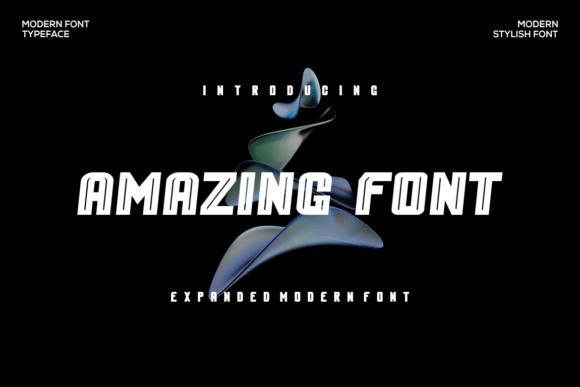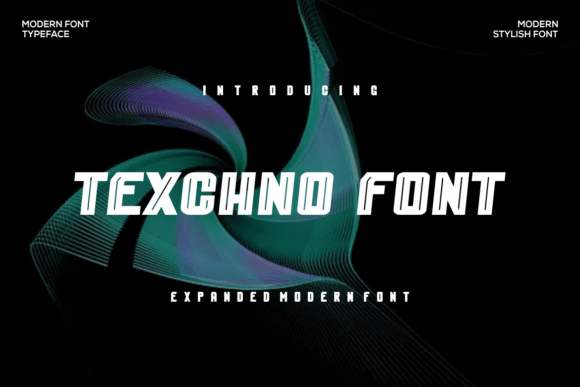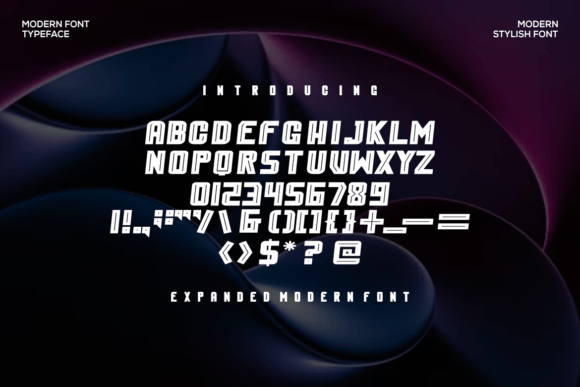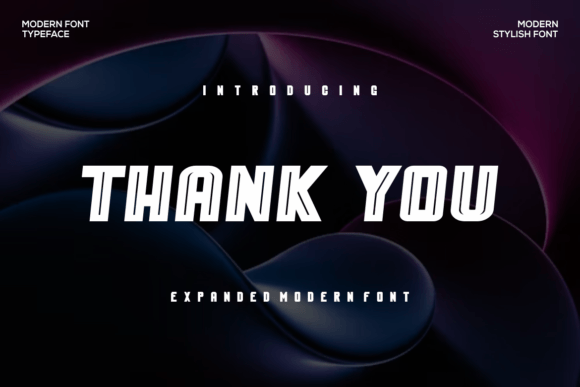
Discover the Power of Bajuga Font
Have you ever stared at a blank canvas, wondering how to bring your idea to life? The blank page can be intimidating, but what if you had the perfect tool to help you unleash your creativity? For designers, finding the right font can be the difference between a mediocre project and a masterpiece.
That’s where the Bajuga Font comes in – a bold and assertive sans serif font that’s sure to elevate any creation. Whether you’re working on a logo, a poster, or a digital display, Bajuga Font has the potential to make your project stand out from the crowd. With its versatility and striking appearance, this font is a valuable asset for any designer’s library.
Bajuga Font Key Features
- Font Family: Bajuga Font is a sans-serif font family, designed to be highly legible and versatile.
- Unique Characteristics: Bajuga Font features a unique geometric design, with clean lines and rounded corners, making it highly readable and aesthetically pleasing.
Bajuga Font Review
As a designer, I was excited to try out the Bajuga font, and overall, I’m impressed with its unique features and aesthetic.
- The Bajuga font has a modern and sleek design that’s perfect for branding and digital projects.
- The font’s versatility allows it to work well in both headings and body text, making it a great choice for a wide range of applications.
- The font’s unique letterforms and subtle details give it a distinctive look that sets it apart from more common sans-serif fonts.
- The Bajuga font may not be suitable for print projects, as the font’s thin lines and high contrast may not reproduce well in print.
- The font’s unique design may not appeal to everyone, and some users may find it difficult to read or use in certain contexts.
- The font’s character set is limited, which may make it difficult to use in languages that require a wide range of characters.
Overall, I think the Bajuga font is a great addition to any designer’s toolkit, but it’s not without its limitations. With careful consideration of the font’s unique features and potential drawbacks, I think it can be a valuable asset for many design projects.
For optimal results, use Bajuga font in conjunction with a clean and modern design aesthetic.
Avoid using Bajuga font for large blocks of text, as it can be overwhelming.
Use Bajuga font for headings, titles, and other emphasis points to create visual interest.
Bajuga font is ideal for:
Designing modern and minimalist logos
Creating eye-catching headlines and titles
Adding a touch of sophistication to business cards and marketing materials
Compared to Bajuga Font, Playfair Display has a more classic and traditional feel, whereas Bajuga Font has a modern and minimalist aesthetic. While Bajuga Font is more versatile, Playfair Display is better suited for formal and high-end applications.
Compared to Bajuga Font, Merriweather has a more traditional and formal feel, whereas Bajuga Font is more modern and minimalist. While Merriweather is better suited for body text, Bajuga Font is more versatile and can be used for headings and titles.